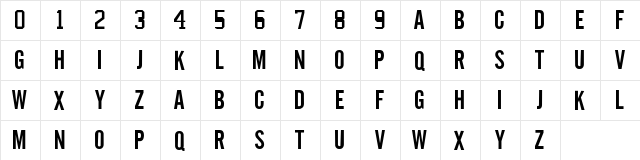
NHL Montreal Regular
Design Context for NHL Montreal Typeface
NHL Montreal offers clean, dependable letterforms without strong stylistic allegiance, making it a practical choice for designers who need flexibility.